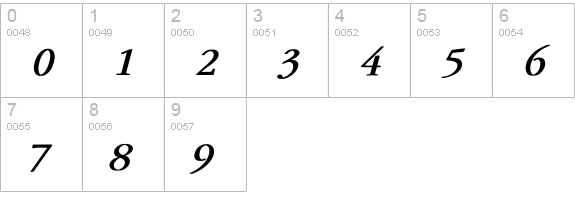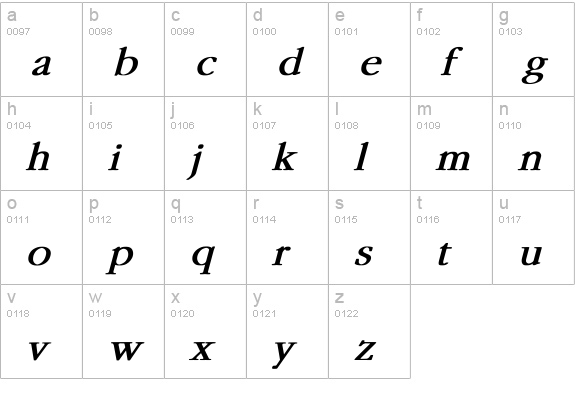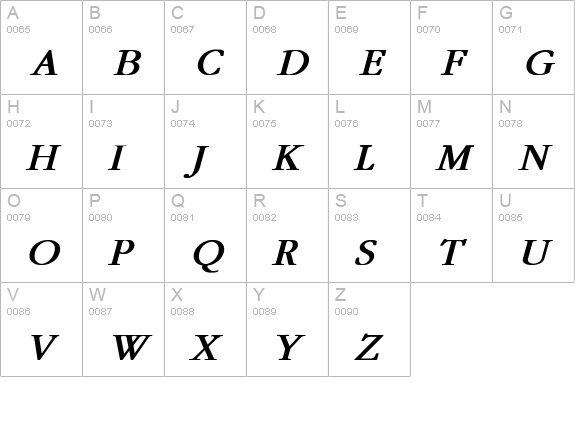
Garamond Bold Italic is a strong, high-contrast, italic variant in the Garamond typeface family \xE2\x80\x94 well suited to headlines, attention-grabbing titles, and strong calls-to-action.
Garamond Bold Italic is a stunning and versatile font that effortlessly combines elegance with a touch of assertiveness. Its bold and slanted design adds a sense of authority and sophistication to any project. This font is perfect for making a statement, whether it's in a logo, headline, or body text. Garamond Bold Italic is known for its timeless appeal, making it a popular choice among designers and typographers alike. Its curved serifs and graceful letterforms create a harmonious balance, capturing the attention of readers and conveying a sense of professionalism. What sets Garamond Bold Italic apart is not only its stunning aesthetics but also its availability for free. Yes, you read that right – this magnificent font can be freely downloaded at FontsMarket.com. This means that you can elevate your designs without breaking the bank, making it a fantastic option for both personal and commercial projects. Whether you're designing a website, crafting a brochure, or creating eye-catching social media graphics, Garamond Bold Italic is your go-to font for adding a touch of class and sophistication. Its versatility allows it to seamlessly adapt to various themes and styles, making it a timeless choice that will never go out of fashion. So why wait? Enhance your design projects with the timeless beauty of Garamond Bold Italic, freely available for download at FontsMarket.com. Experience the elegance and professionalism this font brings, and elevate your designs to new heights.